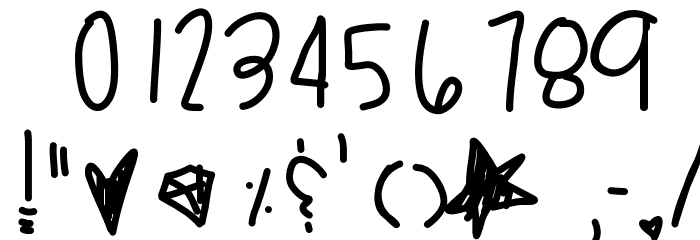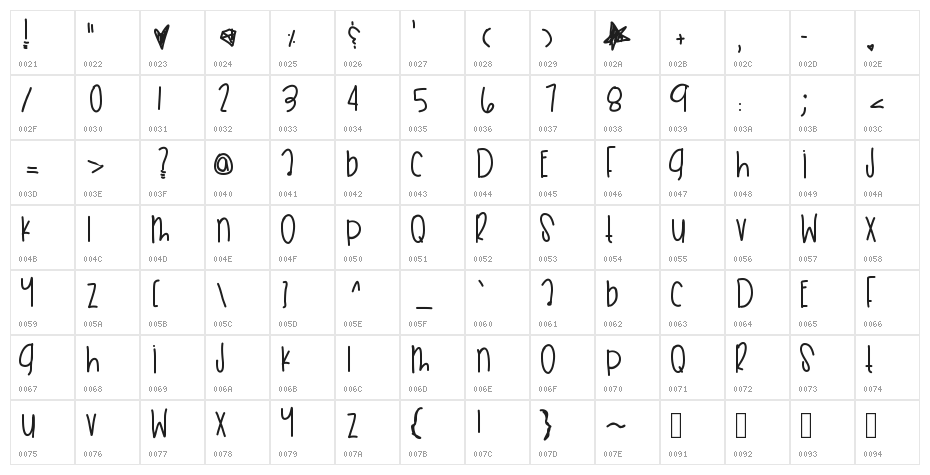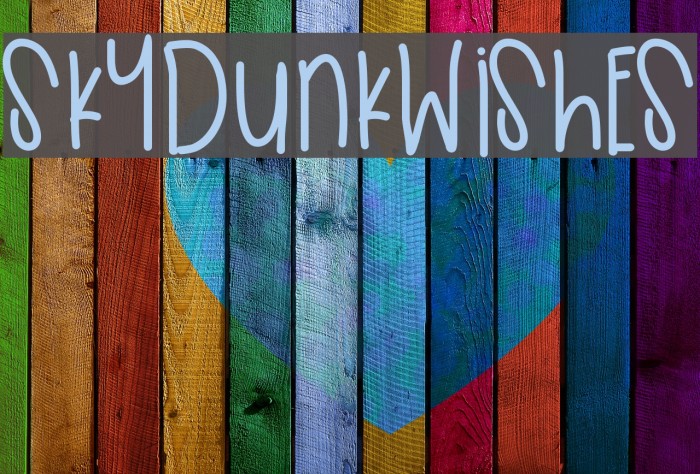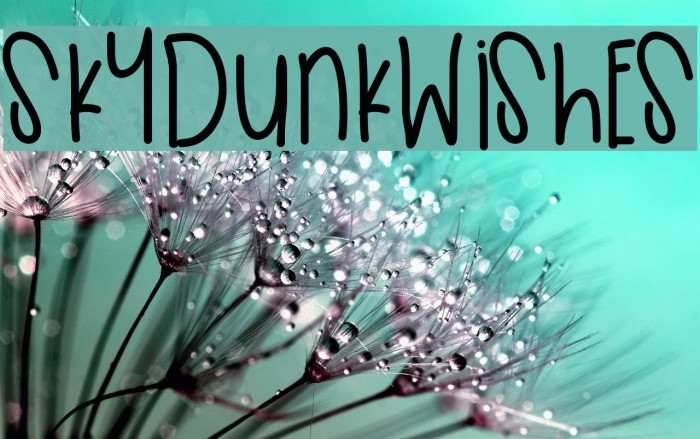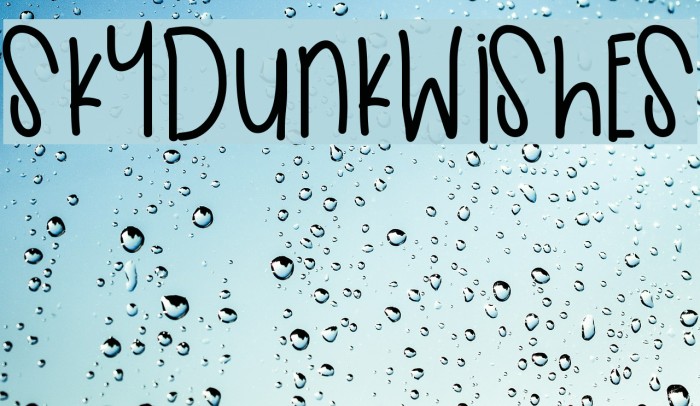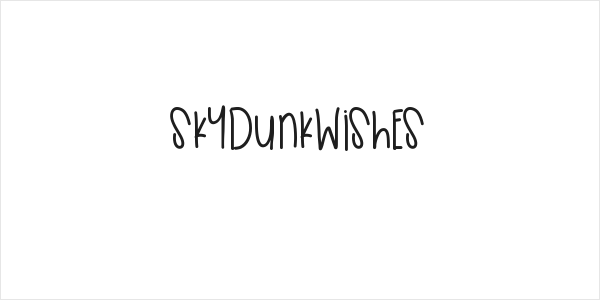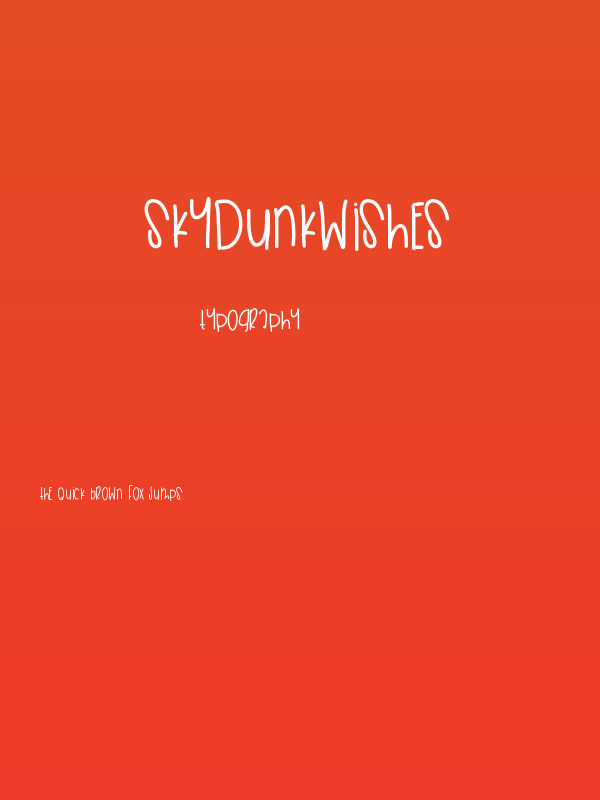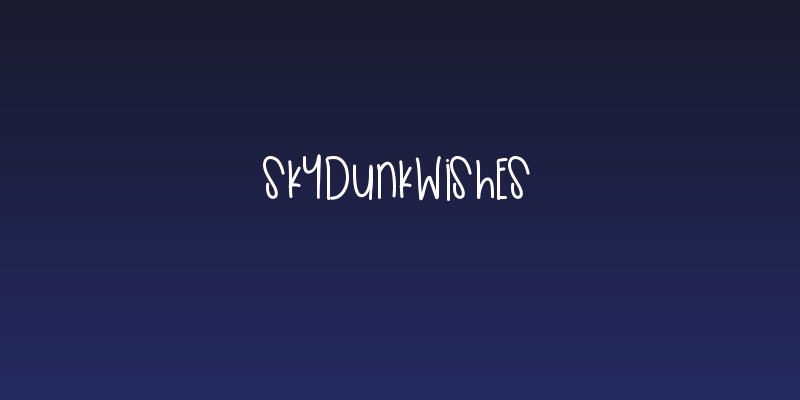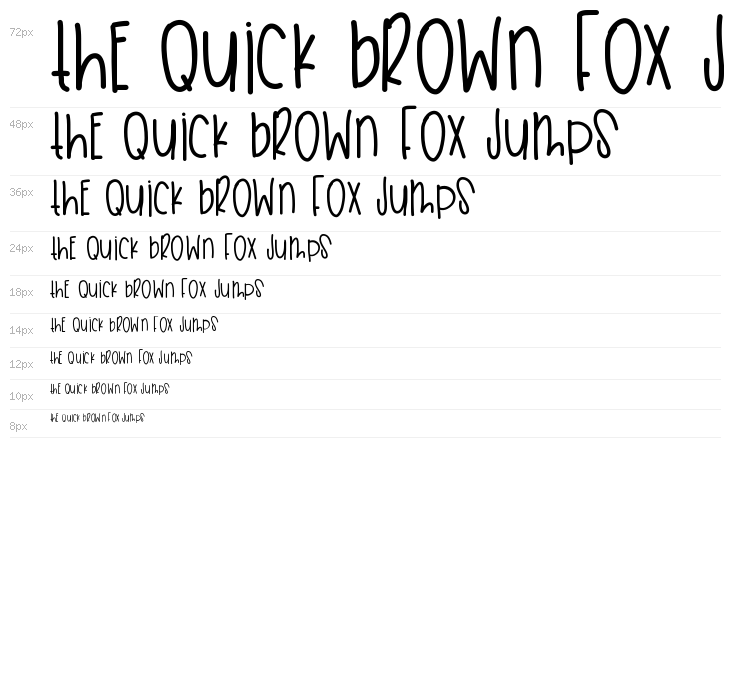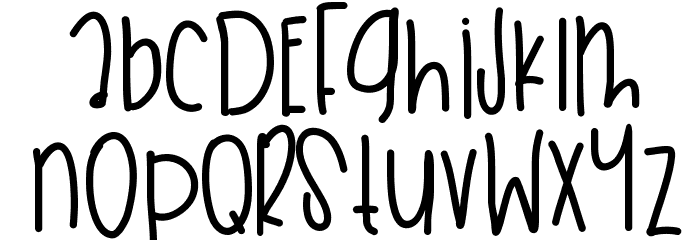
SkyDunkWishes Font
SkyDunkWishes Description
This playful and whimsical font features tall, narrow letters with a hand-drawn aesthetic. The strokes are consistent in width, giving it a uniform appearance despite its casual style. The characters have a slight tilt, adding to the informal and friendly vibe. The uppercase and lowercase letters are distinct yet harmonious, with rounded edges that soften the overall look. Numbers and special characters maintain the same playful style, making this font versatile for creative projects.
| Proposed Projects | Ideal for children's books, greeting cards, playful branding, and casual invitations. |